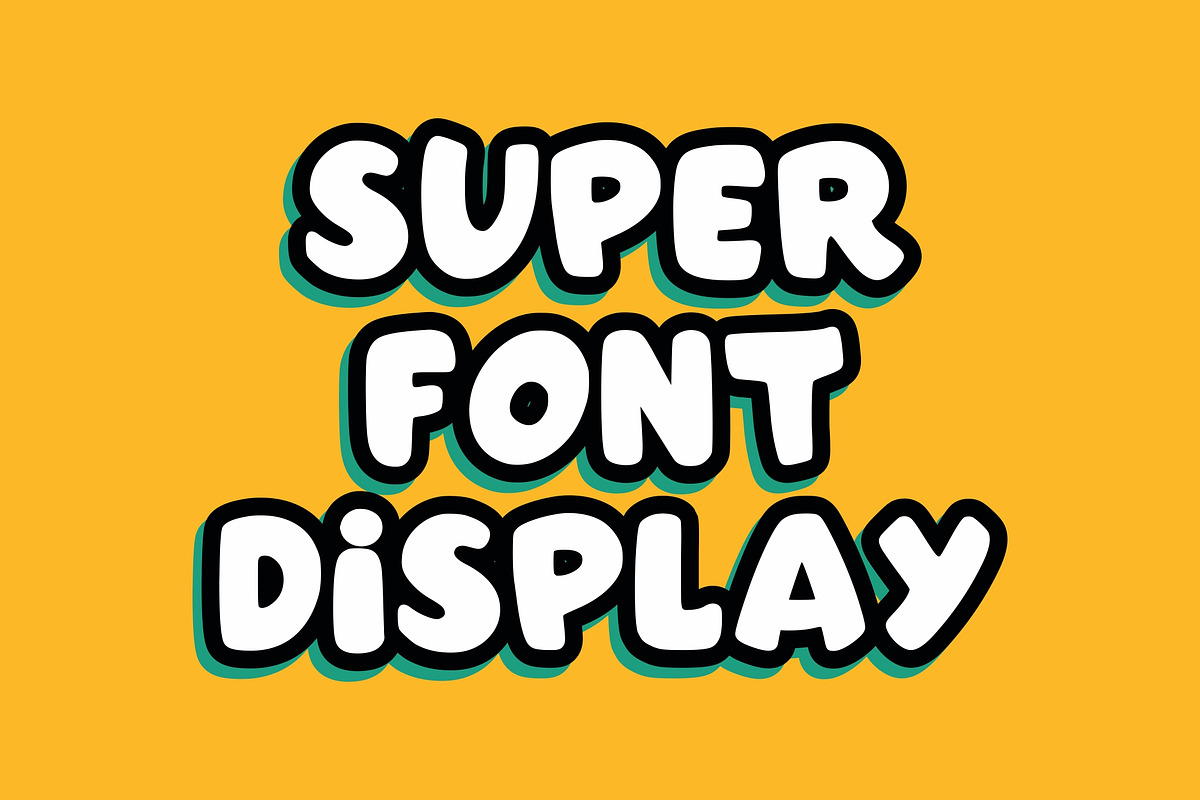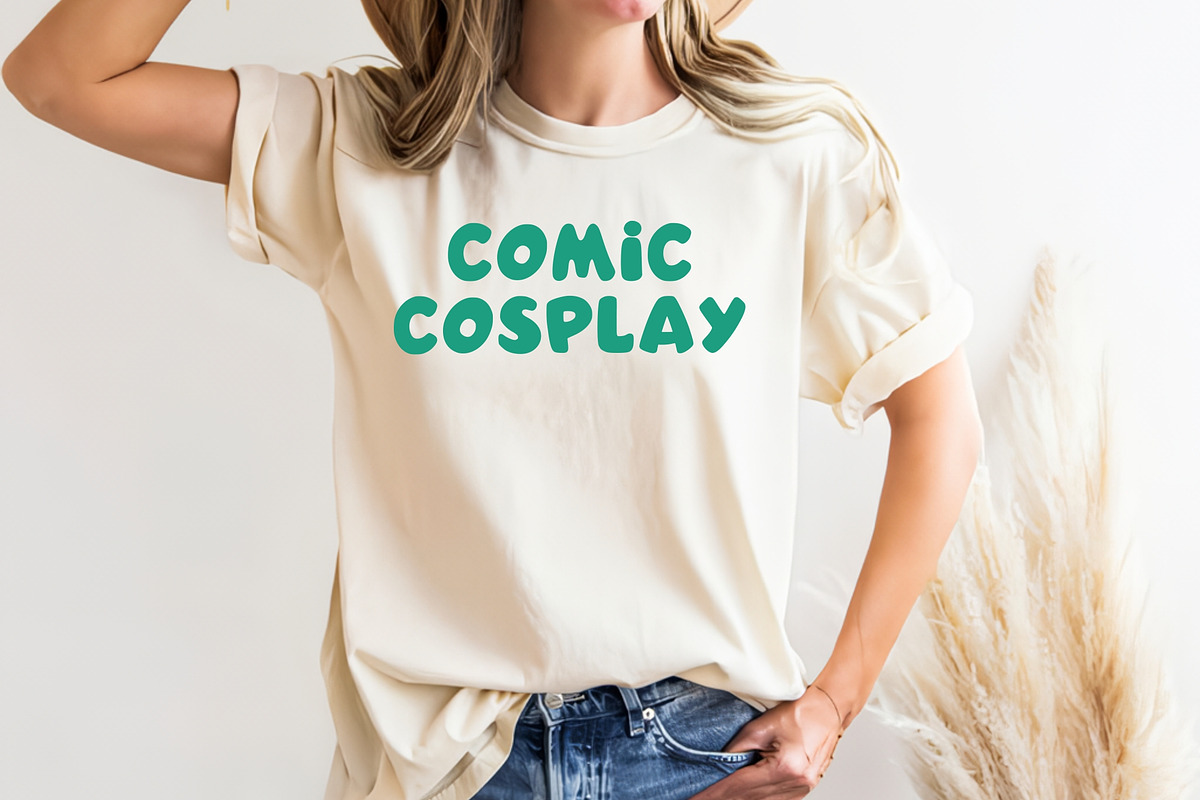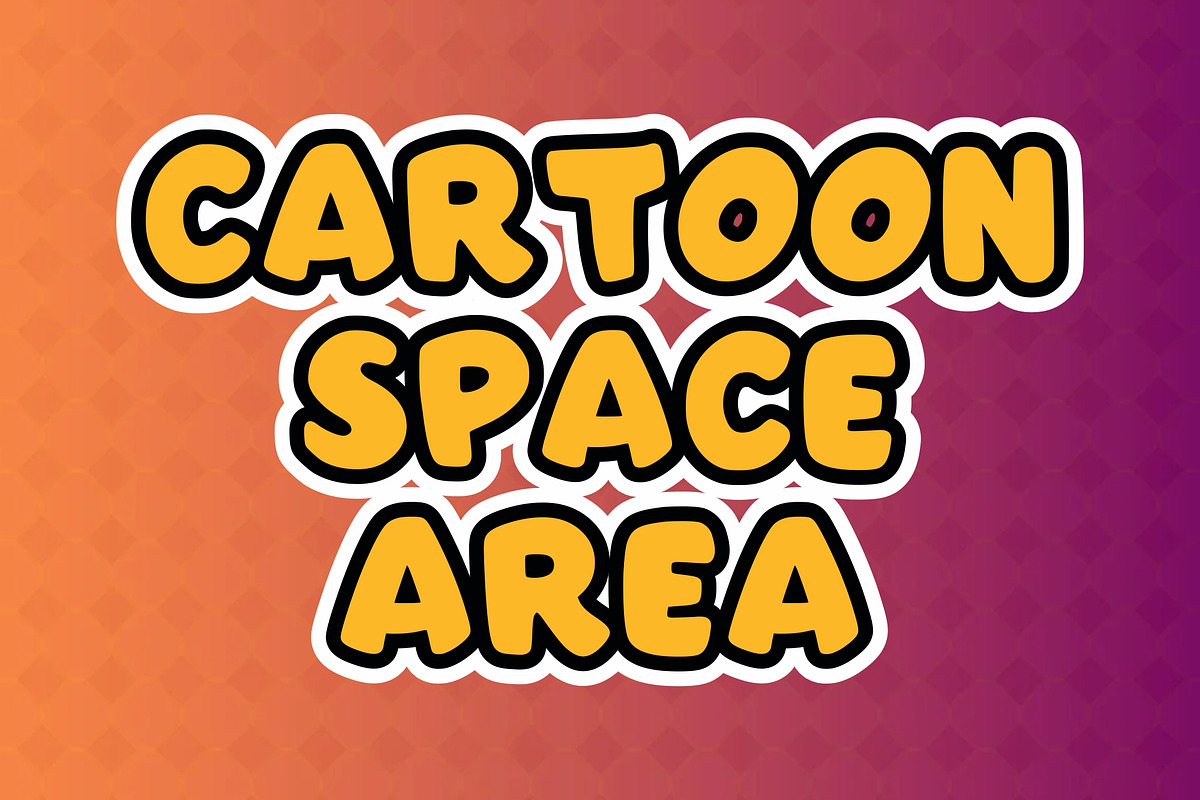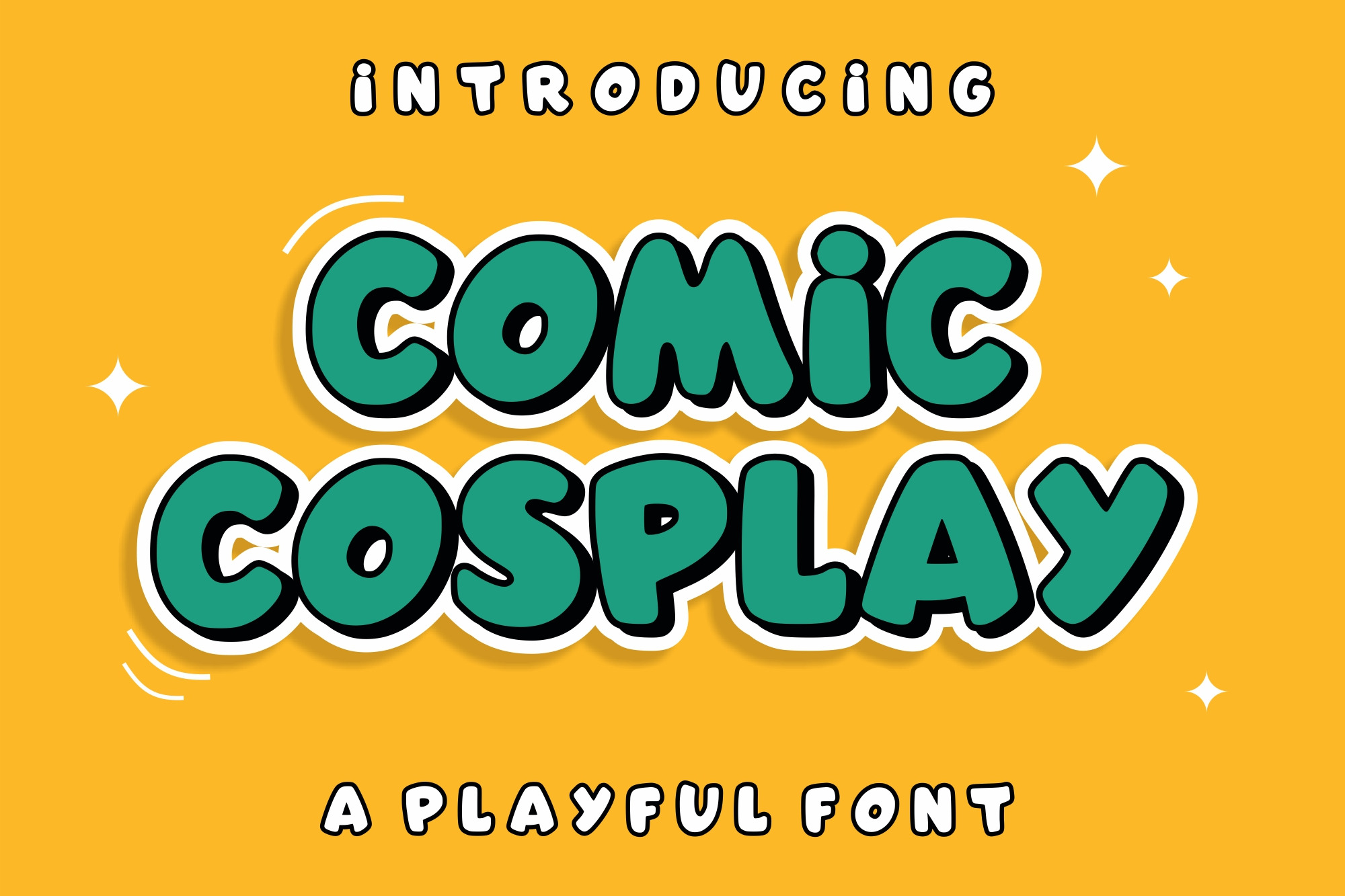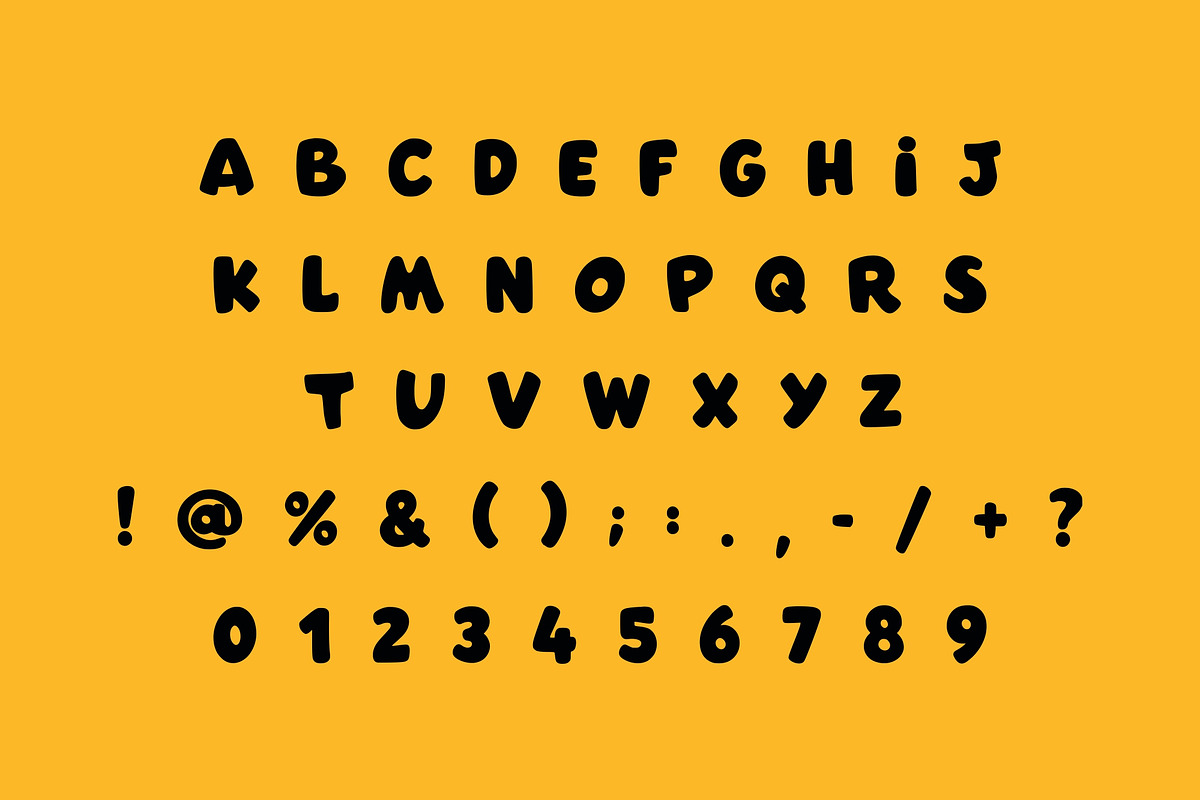
Comic Cosplay - Boom Cartoon Font
Boom! Pow! The Comic Cosplay font brings the energy of the silver screen and comic book pages to your design toolkit.
This Comic Cosplay typeface is a bold, “bubbly” display font with a heavy black outline and a 3D shadow effect, perfect for pop-culture branding and event posters. It captures a sense of fun and action that is indispensable for gaming content, YouTube thumbnails, and convention signage.
Integrating the Comic Cosplay font into your work is easy; its high-contrast “green and white” default look (as seen in previews) screams for attention. Use the Comic Cosplay typeface for headline-grabbing hero sections on websites or for bold apparel prints.
It pairs best with action-oriented graphics, starbursts, and vibrant primary colors. If you want your project to feel heroic and full of life, the Comic Cosplay font is your ultimate secret weapon.